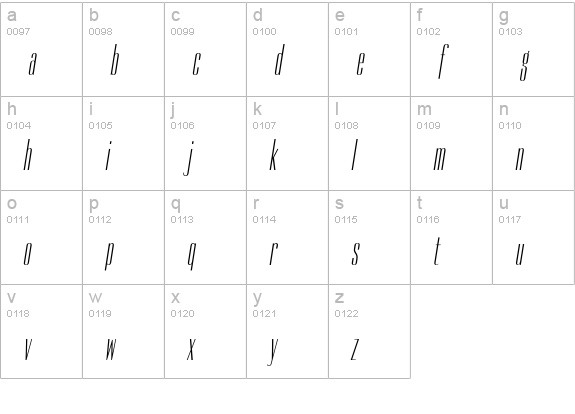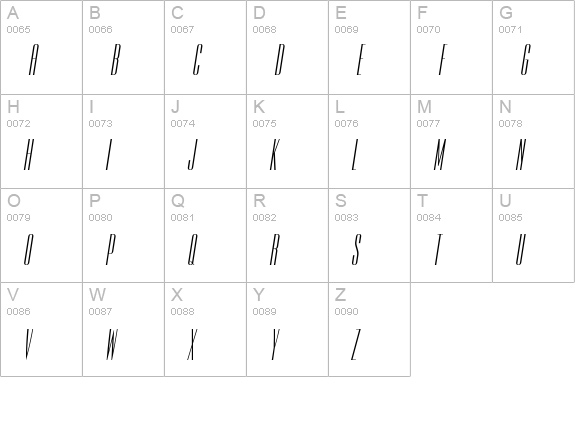
BureauEmpireItalic Font Details
BureauEmpireItalic is a sophisticated and elegant font that exudes a sense of timeless charm and sophistication. With its sleek lines and graceful curves, this font is perfect for adding a touch of luxury to any design project. The italicized style of BureauEmpireItalic adds a touch of flair and sophistication, making it a versatile choice for a wide range of applications. What makes BureauEmpireItalic even more appealing is that it is available for free download at FontsMarket.com. This means that you can easily add this exquisite font to your collection without any cost, making it a valuable addition to any designer's toolkit. Whether you're working on a branding project, a website design, or any other creative endeavor, BureauEmpireItalic is sure to elevate your work with its refined aesthetic and timeless appeal. Download this stunning font today and take your designs to the next level!